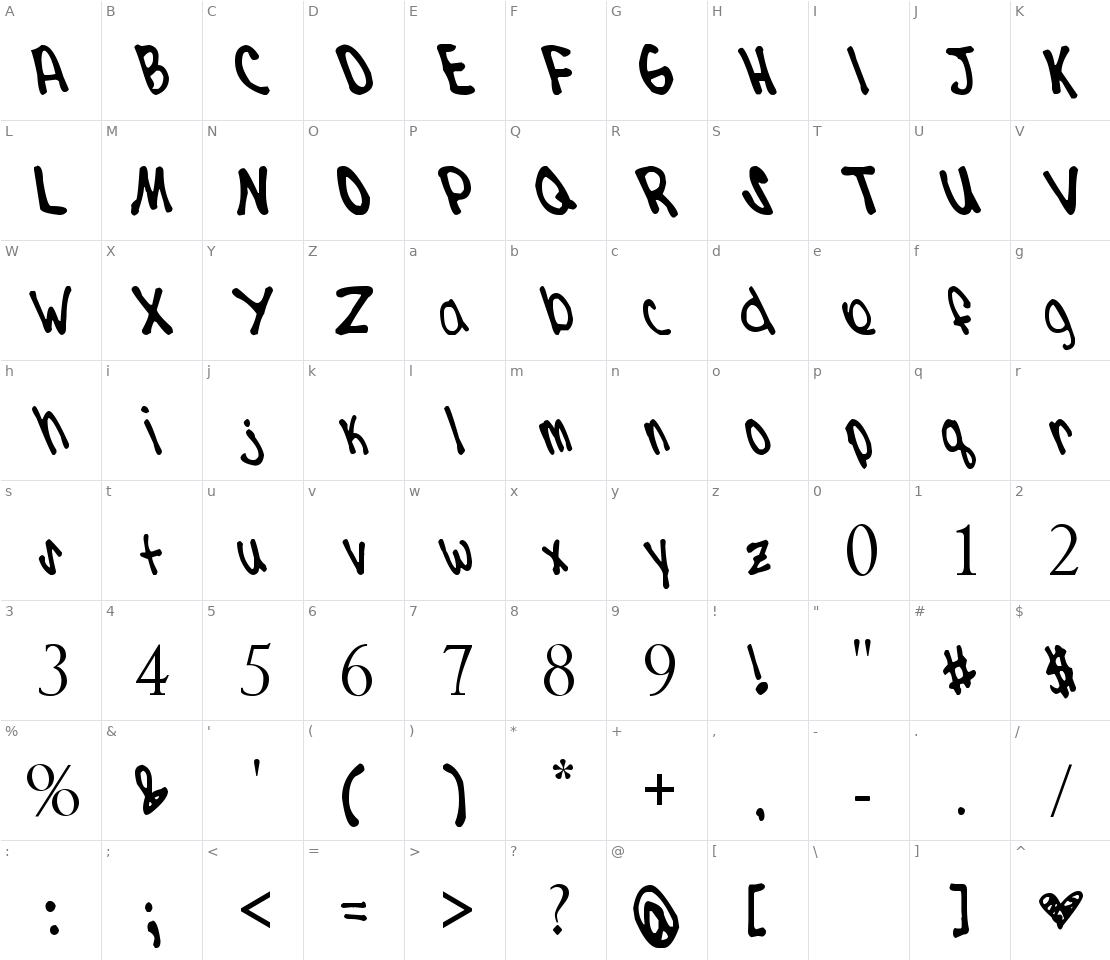
Kdizzle
Kdizzle is a bold, marker-style handwritten face with rough edges and loose, uneven strokes that give it a scrappy, youthful energy. The letterforms feel like someone grabbed a thick felt-tip and just went for it, with no concern for straight lines or consistent baselines. Works best in headlines, social media graphics, and casual branding where polish would actually work against you.